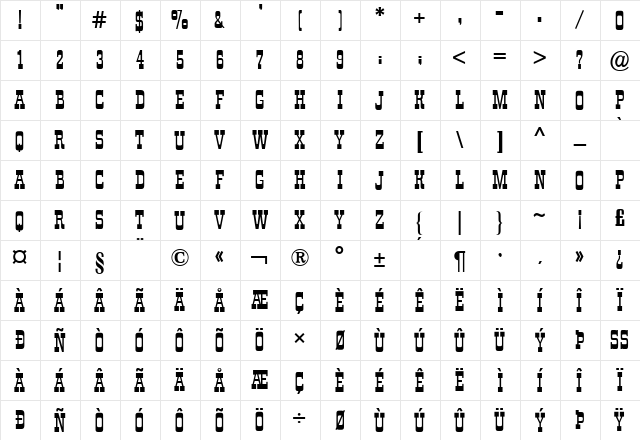
Rio Grande Regular
Design Context for Rio Grande Typeface
Rio Grande is a composed and adaptable typeface that performs quietly and consistently across a wide range of design contexts.